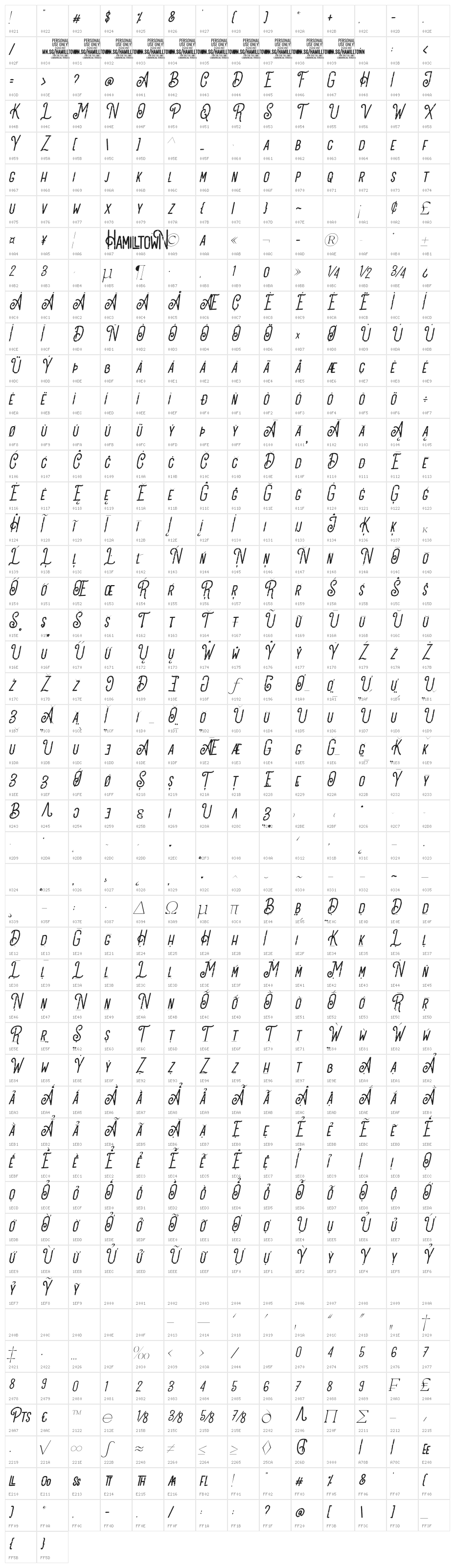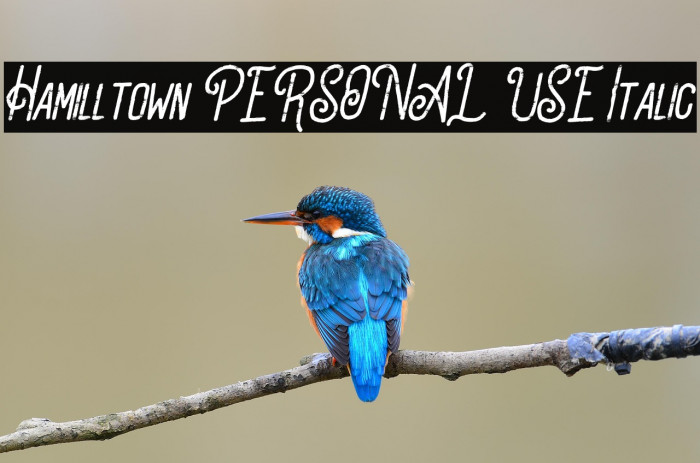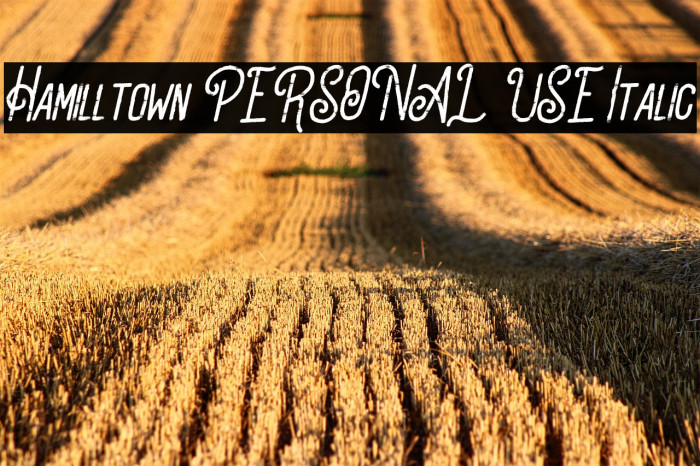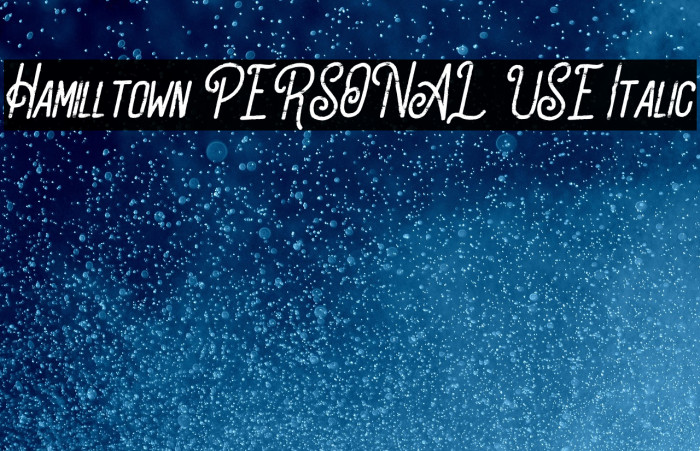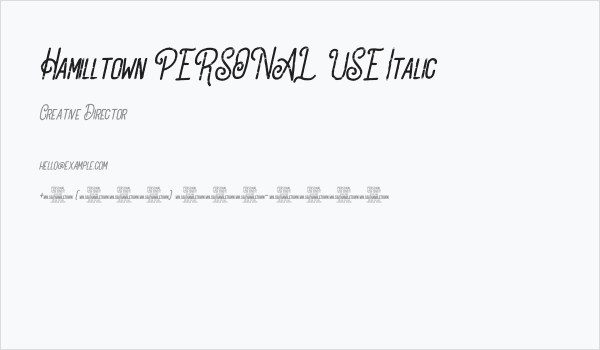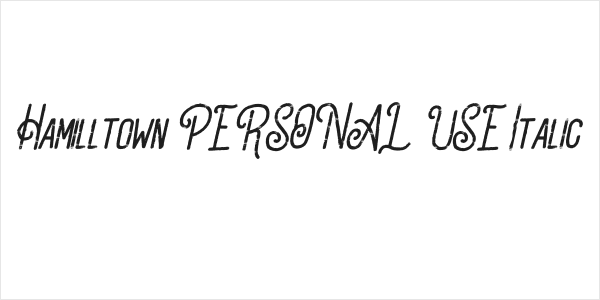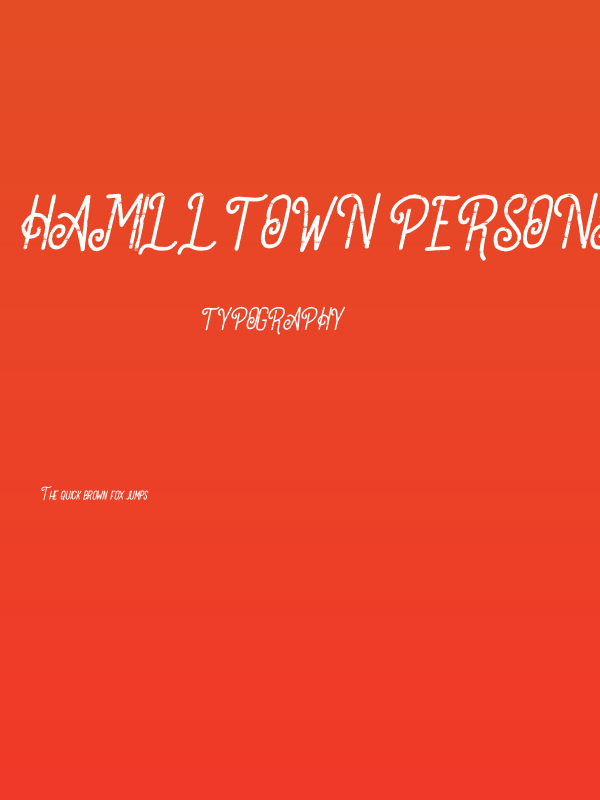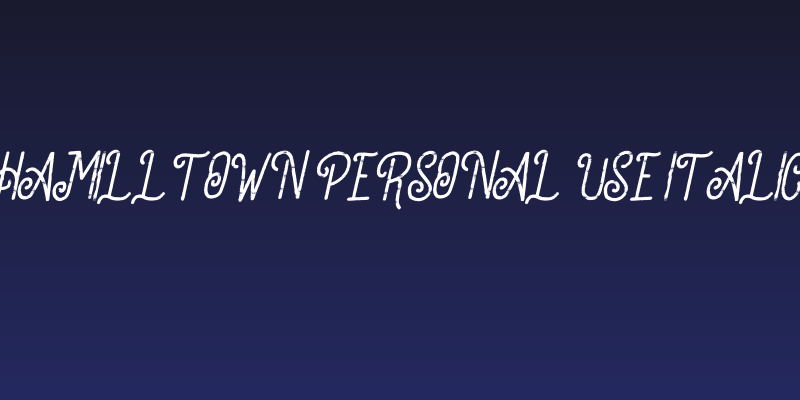
Hamilltown PERSONAL USE Italic Font
Hamilltown PERSONAL USE Italic Description
This font features a dynamic and expressive style with a handwritten appearance. The uppercase letters are bold and slightly slanted, giving a sense of movement and energy. The lowercase letters maintain a consistent flow, complementing the uppercase with their cursive-like strokes. The numbers and special characters are designed to match the overall aesthetic, with a slightly distressed texture adding a vintage feel. This font is ideal for projects that require a personal touch or a creative flair.
| Overall Style | Vintage, Decorative |
| Proposed Projects | Perfect for branding, posters, invitations, and creative projects that require a personal and artistic touch. |